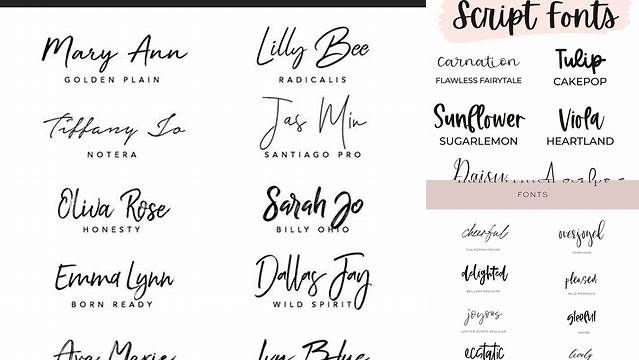
Top Handwriting Script Fonts In Word
Hey guys! Ever wanted to give your documents a more personal touch? Or maybe you're just tired of the same old Times New Roman? Well, you're in luck! We're diving deep into the world of handwriting script fonts in Word. These fonts can add a unique flair to anything from invitations and greeting cards to resumes and creative projects. Choosing the right font can transform the look and feel of your document, making it more engaging and memorable. So, let's explore some of the best options available and how you can use them to make your Word documents stand out. Get ready to add some personality to your text!
H2: Understanding Handwriting Script Fonts
Alright, before we jump into the fonts themselves, let's chat about what exactly makes a handwriting script font. Unlike your standard Arial or Calibri, script fonts aim to mimic the look of actual handwriting. They can range from the elegant and formal to the playful and casual. Think of them as digital versions of your own penmanship, but with a whole lot more consistency (and fewer accidental smudges!). These fonts usually feature connected letters, flowing strokes, and a natural, handwritten feel. The aim is to create a sense of authenticity and personalization that can't be achieved with standard fonts. There's a wide range available, each with its own unique characteristics. Some fonts are designed to look like elegant calligraphy, perfect for invitations or certificates. Others mimic the style of a marker or a casual pen, ideal for a more informal look. They often come in various weights and styles, so you can tailor the font to the specific needs of your document. But understanding these different styles and the nuances of each can be key to finding the perfect handwriting script font for your project. So, let's explore this and other important features to ensure you pick the best font for your Word document. Remember that choosing the right font is about more than just aesthetics; it's about conveying the right message and creating a cohesive design.
H3: The Anatomy of a Handwriting Script Font
Let's break down what actually makes up a handwriting script font. First off, you'll notice the connected letters. Most script fonts are designed with each letter flowing seamlessly into the next, mimicking the continuous strokes of a pen. Then, there's the varied stroke weight. Just like in real handwriting, the thickness of the lines can change, creating visual interest. Some strokes are thick and bold, while others are thin and delicate. This variation adds depth and realism to the font. Another key element is the slant. Many script fonts have a slight tilt, which helps create a sense of movement and energy. This tilt can vary from subtle to quite pronounced, depending on the font's style. Additionally, many fonts offer ligatures, which are special characters that combine two or more letters into a single glyph. This helps improve the flow and authenticity of the text, giving it a more natural handwritten feel. Finally, the overall design is critical. Script fonts can range from elegant and formal to whimsical and playful. The design dictates the font's overall tone and how it will be perceived. Some fonts might have ornate flourishes, while others have a more simple and modern look. So, keep an eye out for these features as you browse through the different options, as these factors will influence how your text appears.
H2: Popular Handwriting Script Fonts in Word
Now, let's get down to the good stuff: the fonts themselves! Word offers a fantastic selection of handwriting script fonts, many of which are readily available and ready to use. This selection allows you to experiment with different styles and find the perfect font for your project. From classic options that will never go out of style to more modern options that will inject some fun into your text, Word has it all. Here are some of the popular options to consider when you need a little bit more flair for your documents: I've even included some tips to help you use them effectively, so you can start creating immediately! Ready to get started? Let’s jump right in.
H3: Brush Script MT
Brush Script MT is a classic for a reason, guys! This font mimics the strokes of a paintbrush, creating a bold and dynamic look. It's a great option for headings, titles, or adding a touch of personality to your text. The strokes are thick and confident, making it easily readable, even at smaller sizes. While it can be a little too strong for large blocks of text, it excels at making short phrases and titles stand out. Its informal and lively feel makes it perfect for greeting cards, invitations, or any project that needs a touch of fun. This font also has a certain old-school charm, making it a great choice for vintage or retro-themed designs. When using Brush Script MT, it's generally best to keep the text short and sweet. Because it's a bold font, overusing it can become overwhelming. Pairing it with a more readable font for body text is a good idea to create a balanced look. The overall goal is to enhance, not overshadow the content. So, if you want your text to look friendly and a bit playful, this is a great choice!
H2: Exploring Elegant Script Fonts
Alright, let’s explore the more sophisticated side of handwriting script fonts. If you're looking to add a touch of elegance and class to your documents, then you need to focus on elegant script fonts. These fonts are often used for formal invitations, certificates, or any project where you want to convey a sense of refinement. These fonts usually have delicate strokes, flowing connections, and a refined appearance. They're perfect for conveying a sense of luxury and sophistication, making your documents stand out. So, let’s explore the top fonts, including their unique features and how to best utilize them. These fonts are great for creating a memorable impression.
H3: Edwardian Script ITC
Edwardian Script ITC is all about elegance. This font features a classic, flowing style reminiscent of the Edwardian era. Its delicate strokes and graceful curves make it perfect for formal invitations, certificates, and any project that calls for a touch of class. When used correctly, this font can make your documents look professional. The connections between the letters are smooth and graceful, creating a seamless flow that's easy on the eyes. The font's inherent sophistication makes it ideal for projects where you want to project a sense of prestige. It's not the best choice for large blocks of text, but it's perfect for titles, headings, and short phrases. When using Edwardian Script ITC, the key is to keep it clean and simple. Pairing it with a clean, sans-serif font for the body text will ensure the elegance shines through without being overwhelming. Always be aware of the context. Ensure that the font is appropriate for the overall design and message you're trying to convey. With a little care, Edwardian Script ITC can add a touch of timeless beauty to your documents, making them truly unforgettable.
H2: Modern and Playful Script Fonts
Not all script fonts need to be formal and sophisticated. If you're looking for something a bit more modern and fun, there are plenty of options available. These fonts often feature bolder strokes, unique letterforms, and a more contemporary feel. They are perfect for projects that require a touch of personality and creativity. This section is all about exploring the world of modern and playful script fonts. These are great for adding a touch of flair to your documents. Let's find some great fonts that can elevate the look and feel of your work and that will inject a little bit of fun into your text. Let's begin!
H3: Lobster
Lobster is a bold, modern script font with a playful vibe. Its thick strokes and slight slant make it incredibly eye-catching. This font is perfect for headlines, logos, and any project where you want to make a statement. Its fun and lively design makes it a great choice for projects aimed at a younger audience or those that want a lighthearted feel. The strong, connected letters give it a sense of energy and movement. Lobster is extremely versatile. It can be used in a variety of contexts, from websites to print materials. Its high readability makes it perfect for titles and short phrases. When using Lobster, it's important to consider the overall design. Because it's a bold font, it's best to use it sparingly. Try pairing it with a simple, clean font for the body text to achieve a balanced look. Lobster is a great option for adding personality and flair to your work. If you are looking for a font that is both modern and memorable, give Lobster a try!
H2: Free vs. Paid Handwriting Script Fonts
When it comes to handwriting script fonts, you've got two main options: free and paid. Each has its own advantages and disadvantages. This section will explore the world of free and paid fonts. Understanding the pros and cons of each option can help you make an informed decision and select the perfect font for your project. Both options offer unique benefits, and the best choice depends on your specific needs and budget. So let's compare both of them and what each one has to offer.